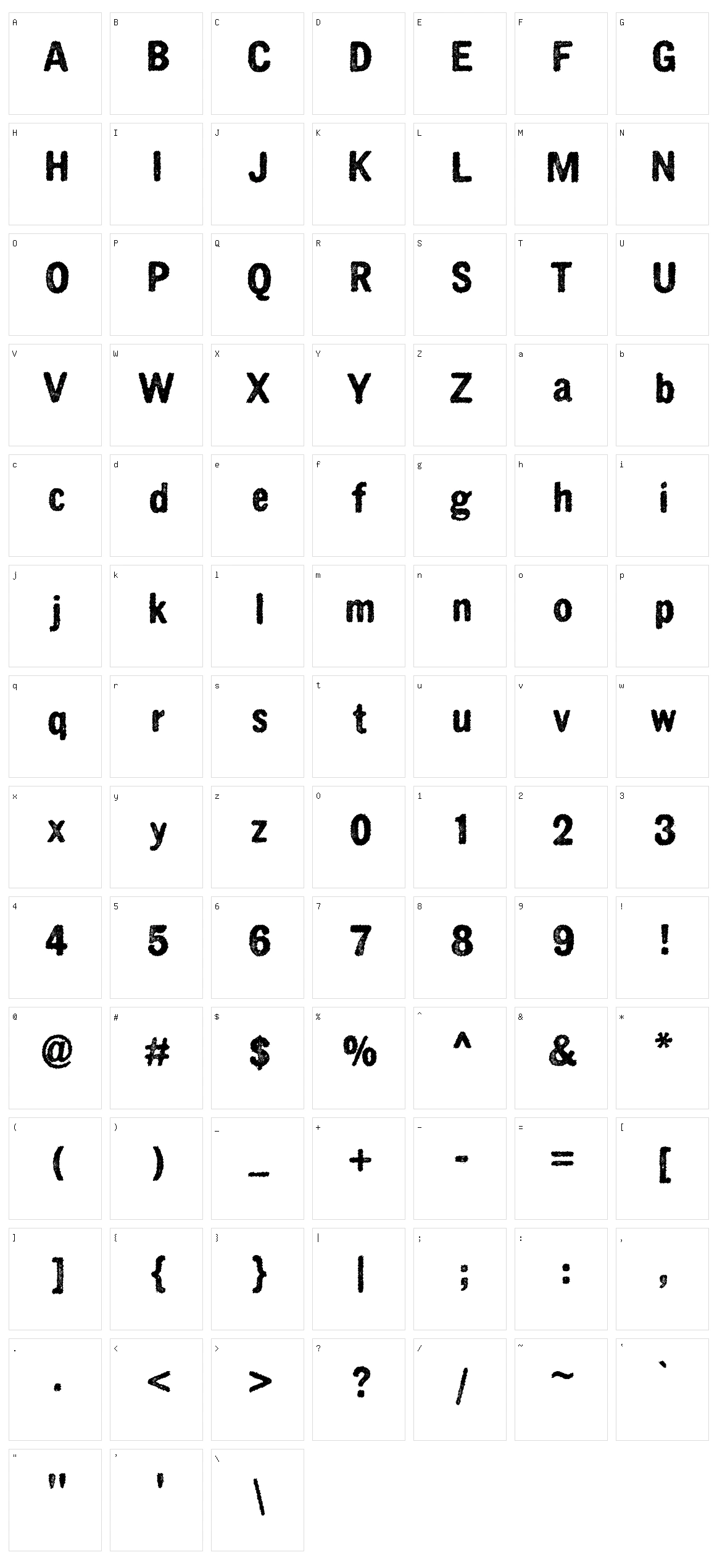
The free font Crnagorszkij Buddah Orkesztar is carefully designed by Bumbayo Font Fabrik, showcasing a thoughtful balance of creativity and usability and falls under the Eroded font style. When you download the ZIP file, it contains only 229.66 KB of font files, making it lightweight and quick to download. Please review the license details below to understand permitted usage and distribution rights. If license information is not available, we recommend using this font for personal projects only or contacting the author directly for commercial usage permissions.